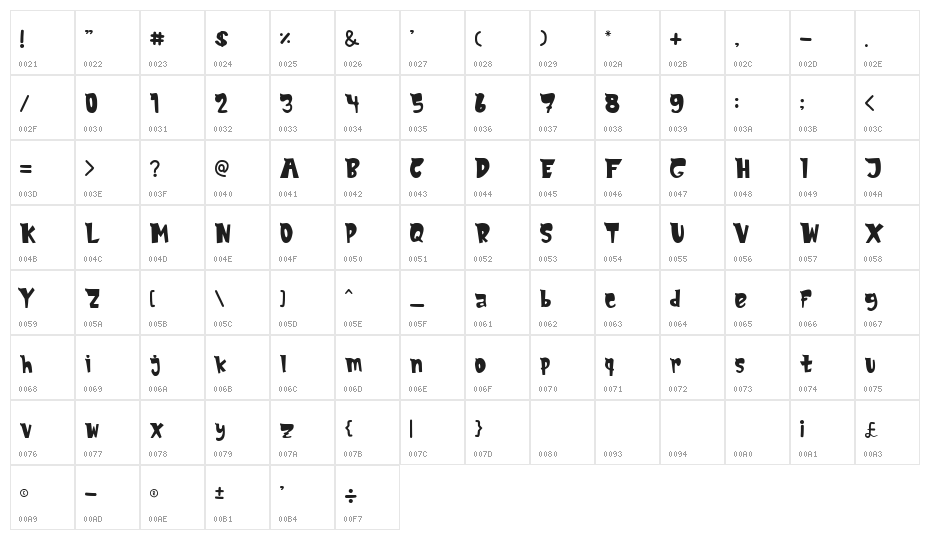
MonsTerio Font
MonsTerio Description
This font features a playful and bold design with exaggerated, irregular shapes that give it a quirky and fun appearance. The characters have a hand-drawn quality, with uneven strokes and varying thicknesses that add to its whimsical charm. The uppercase letters are particularly striking, with some characters having unique, unexpected angles and curves. The lowercase letters maintain the same playful style, ensuring consistency throughout the typeface. Numbers and special characters follow the same design principles, making this font versatile for creative projects. Its distinctive style makes it stand out, perfect for capturing attention in any design.
| Overall Style | Playful, Quirky, Hand-drawn |